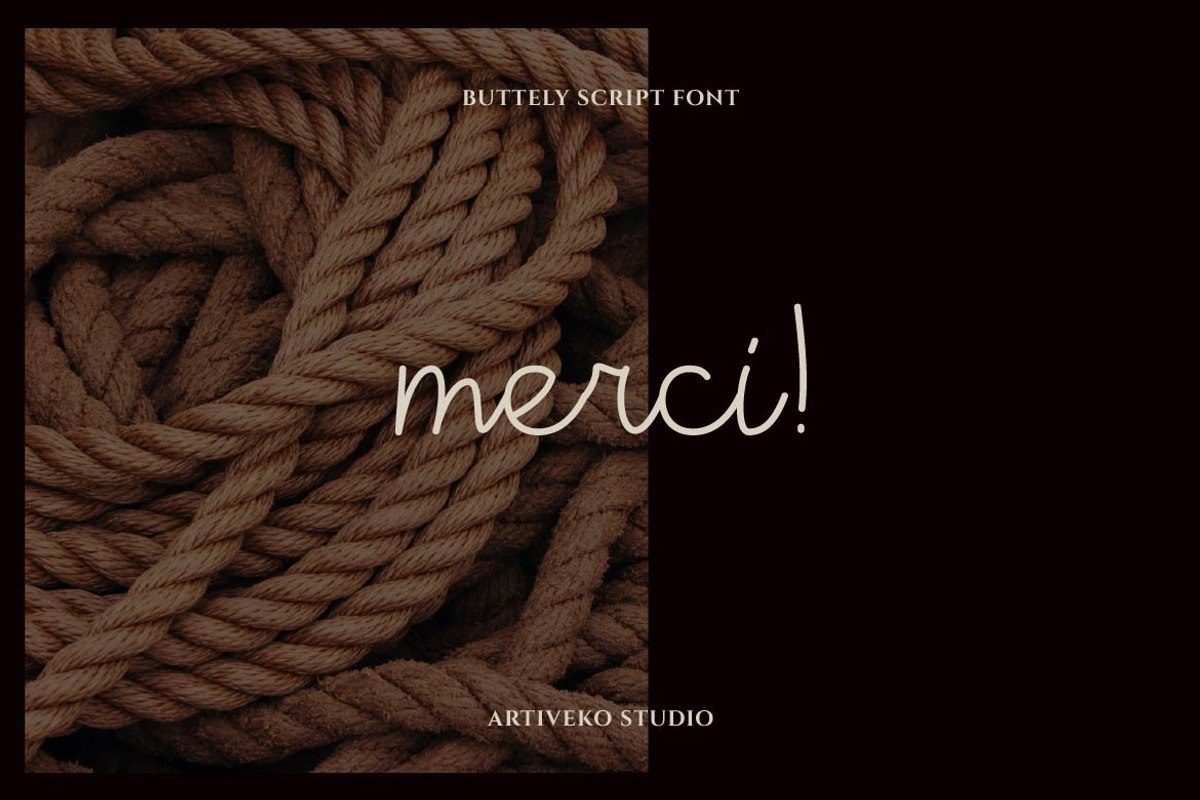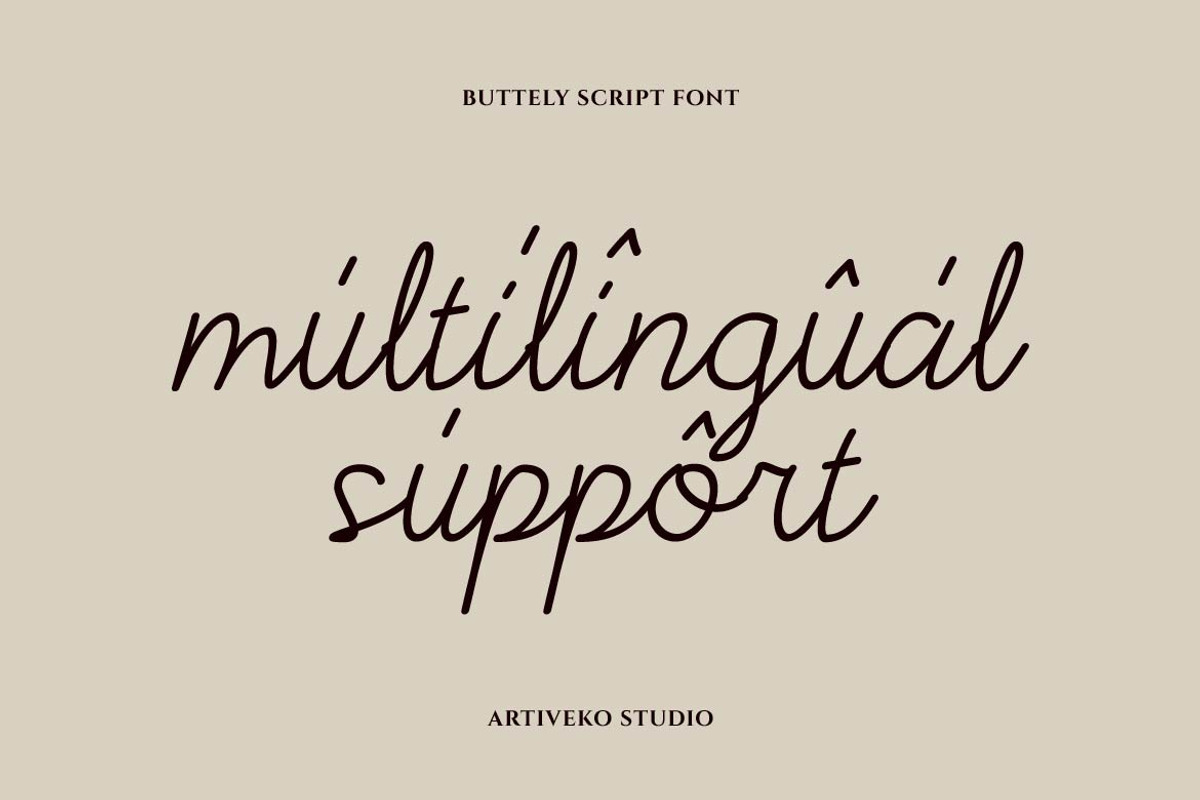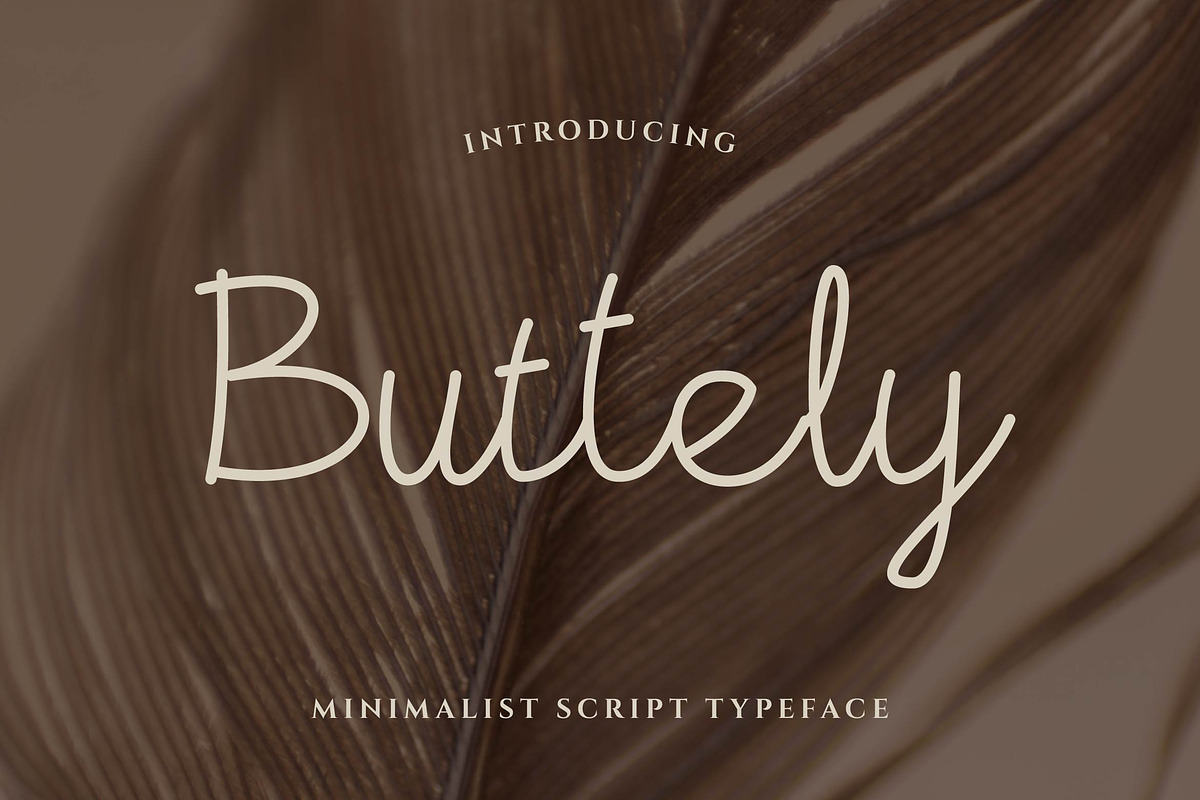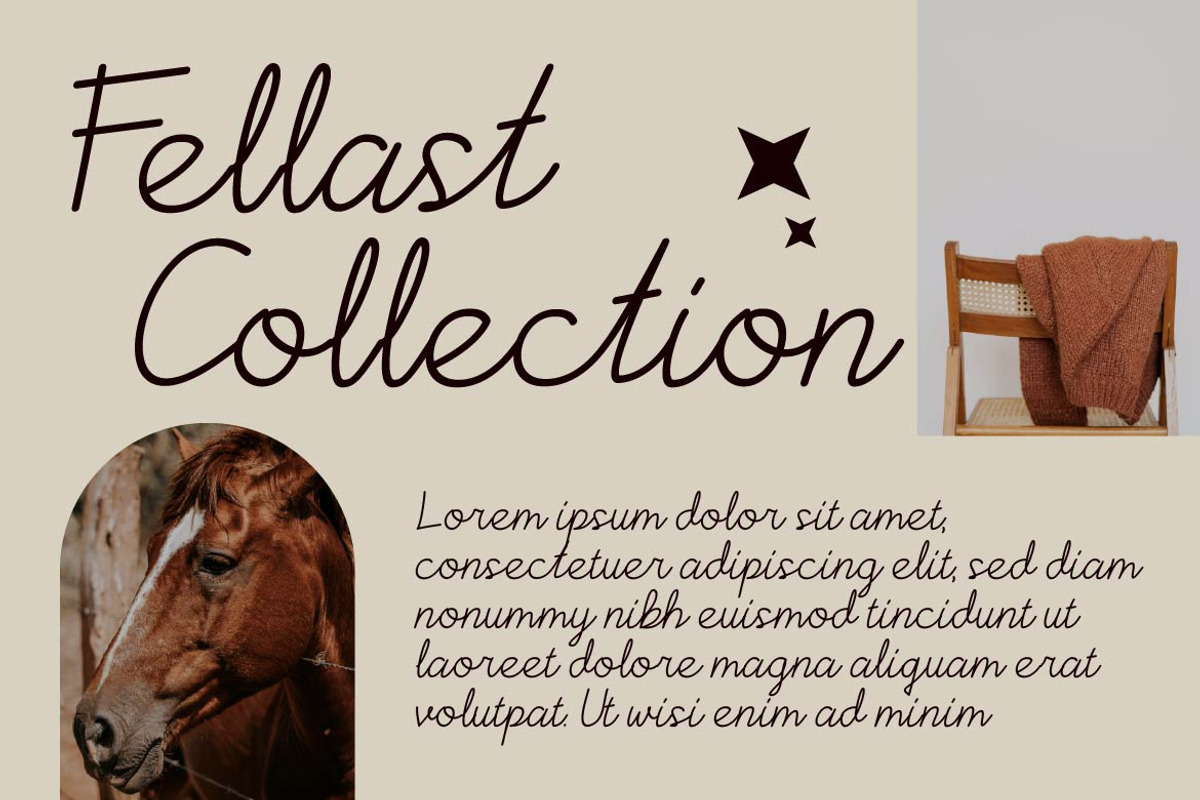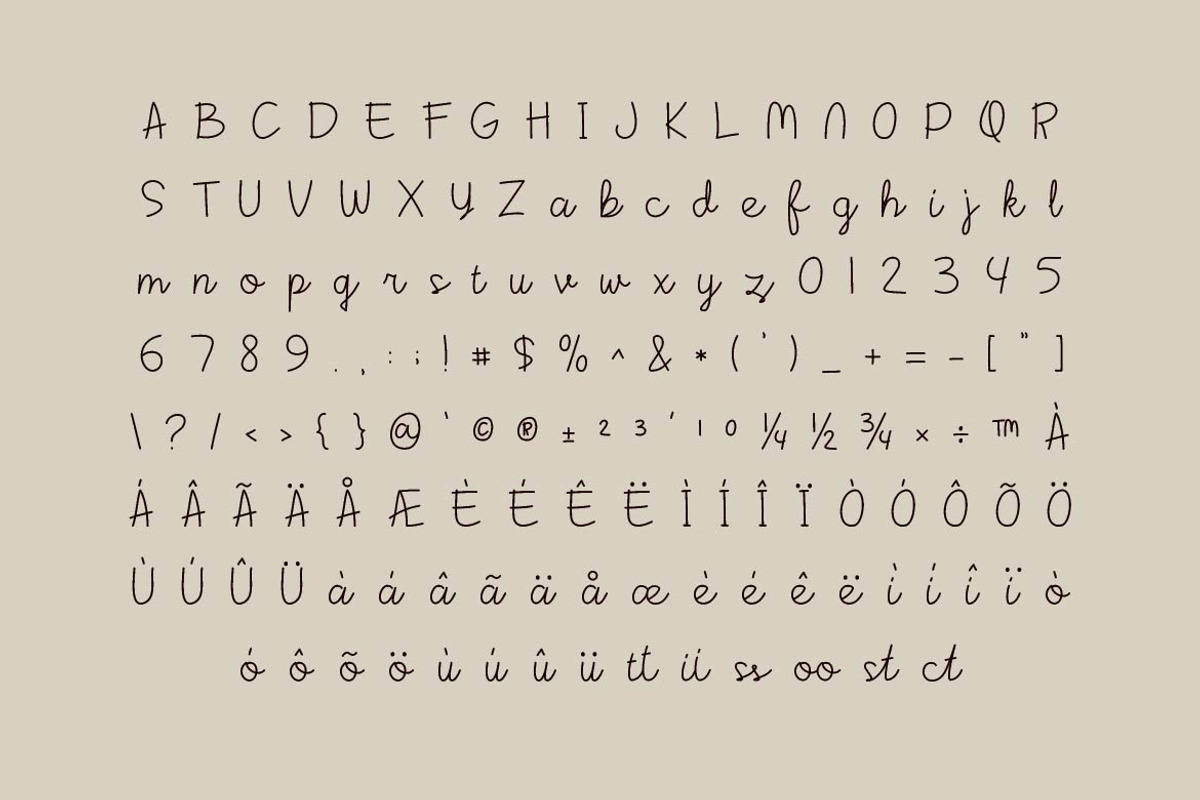
Buttely Signature Script
Buttely is a clean and graceful script typeface designed for those who love simplicity with a soft, handwritten touch. With smooth curves, gentle flow, and an airy structure, Buttely brings subtle elegance to every project — perfect for branding, logo signatures, wedding stationery, social media, and minimalist packaging.